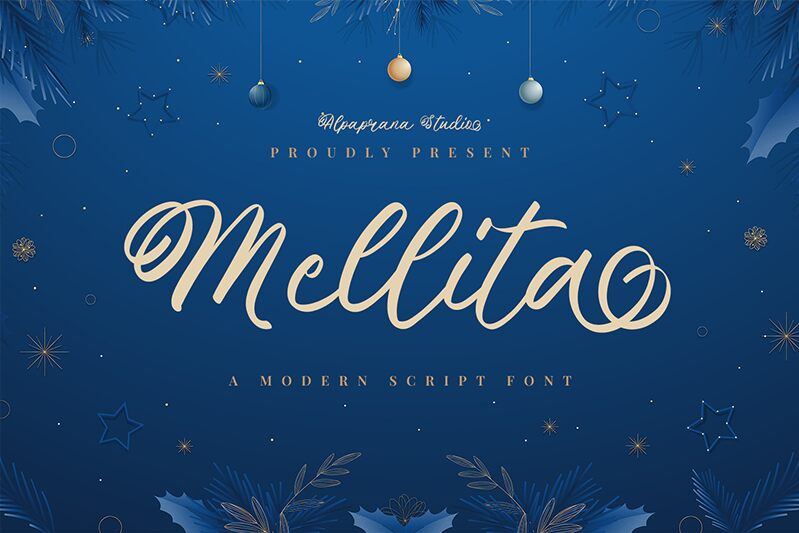
Mellita
Mellita font designed by Alpaprana Studio is a free handwritten font with elegant letters that are perfect for classy projects. Their shapes, which flow smoothly from one to the other, communicate an aesthetically pleasing look and a sophisticated touch. This modern calligraphic style gives readers a personal experience with its artistic flair and expressive appearance.
A great use case for downloading this typeface is in invitations such as wedding invitations, business cards, photo captions, or engagement posts. Other purposes may include designing logos or branding identities for luxury goods. Additionally use it in packaging design (cosmetics), stamps or letterheads design, certificates or awards.